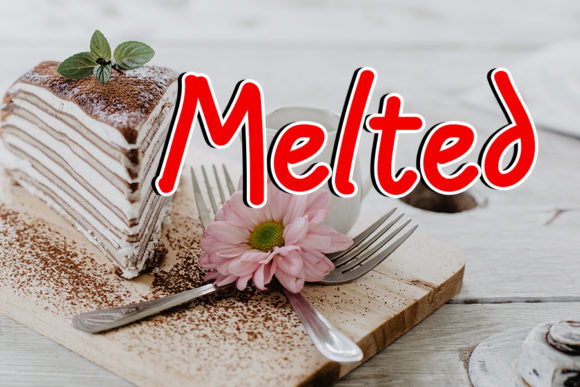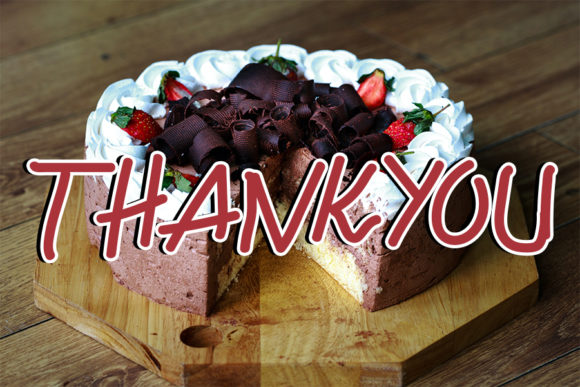
Indulge in the Sweet World of Delicious Cake Font
You know that moment when you’re brainstorming ideas for a new design project and the perfect font suddenly pops into your head? It’s like stumbling upon a secret ingredient that elevates your creation from ordinary to extraordinary. For designers, finding the right font can make all the difference. That’s where Delicious Cake Font comes in – a delightful and playful handwritten font designed to bring your creative ideas to life.
This charming font is perfect for designers looking to add a touch of whimsy and personality to their projects. Whether you’re working on a children’s book, a food blog, or a social media campaign, Delicious Cake Font is sure to capture the attention of your audience. With its friendly and approachable feel, this font is a valuable addition to any designer’s toolkit.
Delicious Cake Font Key Features
- Font Style: A playful, cursive font designed to resemble handwriting, perfect for baking-related projects, food blogs, or desserts.
- Size: The font family includes 6 different font sizes, ranging from 12 to 72 points, offering flexibility for various design needs.
- Resolution: The font is designed to be scalable, ensuring crisp and clear text at any resolution, from low-resolution displays to high-resolution prints.
- Language Support: The Delicious Cake Font supports a wide range of languages, including English, Spanish, French, German, Italian, and many more.
- Unique Characteristics: The font features decorative flourishes, swashes, and ligatures, making it perfect for adding a touch of whimsy and personality to baking-related designs.
Delicious Cake Font Review
Overall, I think Delicious Cake Font is a charming addition to any dessert-themed design project. It works well in ✨ **titles and headings**, where its playful, cursive style can really add a touch of whimsy. The font also ✨ **renders well in various sizes**, from small captions to large display headers.
The font’s ✨ **legibility** is also a major plus, making it easy to read even in smaller text sizes. However, there are some limitations to consider:
- ⚠️ Delicious Cake Font may not be the best choice for body text, as it can feel a bit too ornate and overwhelming in large quantities.
- ⚠️ The font’s character set is somewhat limited, which may be a concern for designers working on projects that require a wide range of characters.
Overall, I’d give Delicious Cake Font 4 out of 5 stars. While it’s not perfect, it’s a great choice for designers looking to add a touch of sweetness to their projects. Just be mindful of its limitations, and use it judiciously to avoid overwhelming your audience.
Delicious Cake Font is ideal for baking and food-related designs, including:
– Bakery logos and branding
– Food blog headers and titles
– Wedding and party invitations
For the best results, use the font in conjunction with other baking-themed graphics and images.
Alternatives to Delicious Cake Font
Great Vibes is a beautiful, cursive script font that is perfect for adding a touch of elegance and sophistication to your designs. It’s ideal for use in invitations, greeting cards, and other promotional materials where a warm and inviting tone is desired. Great Vibes is a more polished and refined alternative to Delicious Cake Font, with a wider range of styles and a more consistent flow.
Pacifico is a modern, sans-serif font with a relaxed and casual feel. It’s perfect for use in designs where a clean and minimalist aesthetic is desired, such as in logos, branding materials, and digital products. Pacifico is a more versatile and modern alternative to Delicious Cake Font, with a wider range of applications and a more contemporary look.